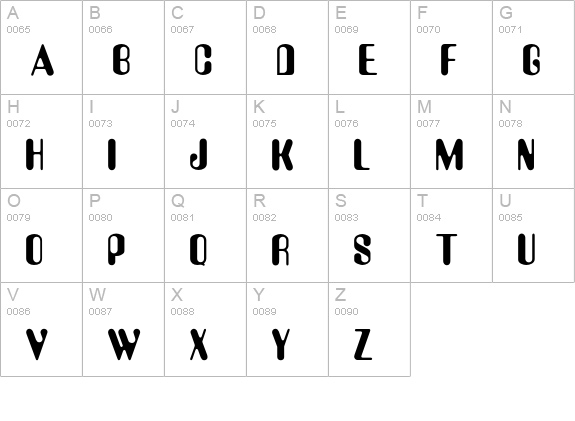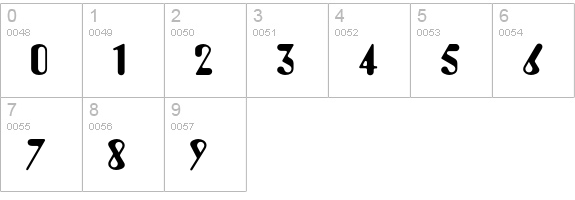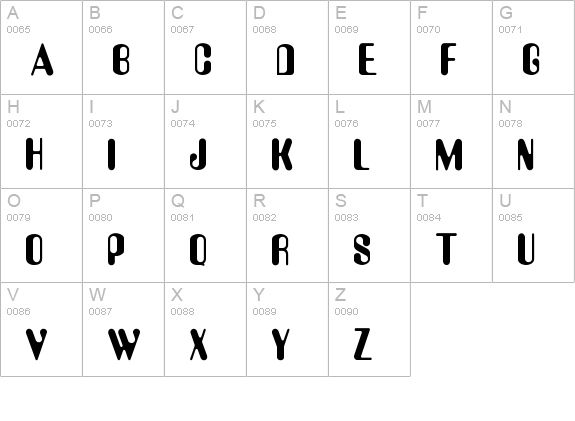
AmeliaICG font is a stunning display typeface that exudes elegance and sophistication. Its intricate details and unique design make it perfect for adding a touch of class to any project. The font features beautifully crafted characters with a modern twist, making it versatile for a wide range of design applications. What sets AmeliaICG font apart is that it is completely free to download at FontsMarket.com. This means that you can access this exquisite typeface without any cost, allowing you to elevate your designs without breaking the bank. Whether you're working on branding, invitations, posters, or any other creative project, AmeliaICG font is sure to make a statement and leave a lasting impression. Upgrade your design arsenal with this exceptional font today!